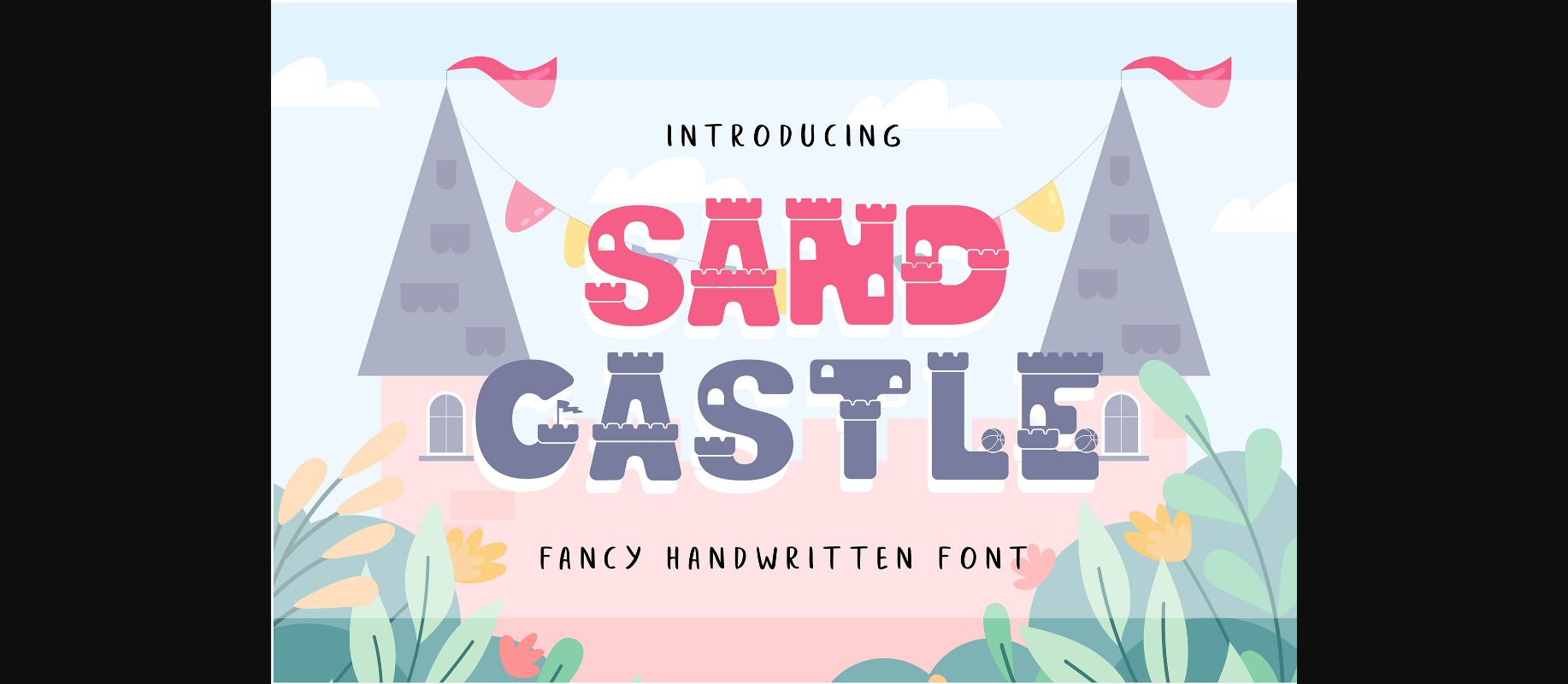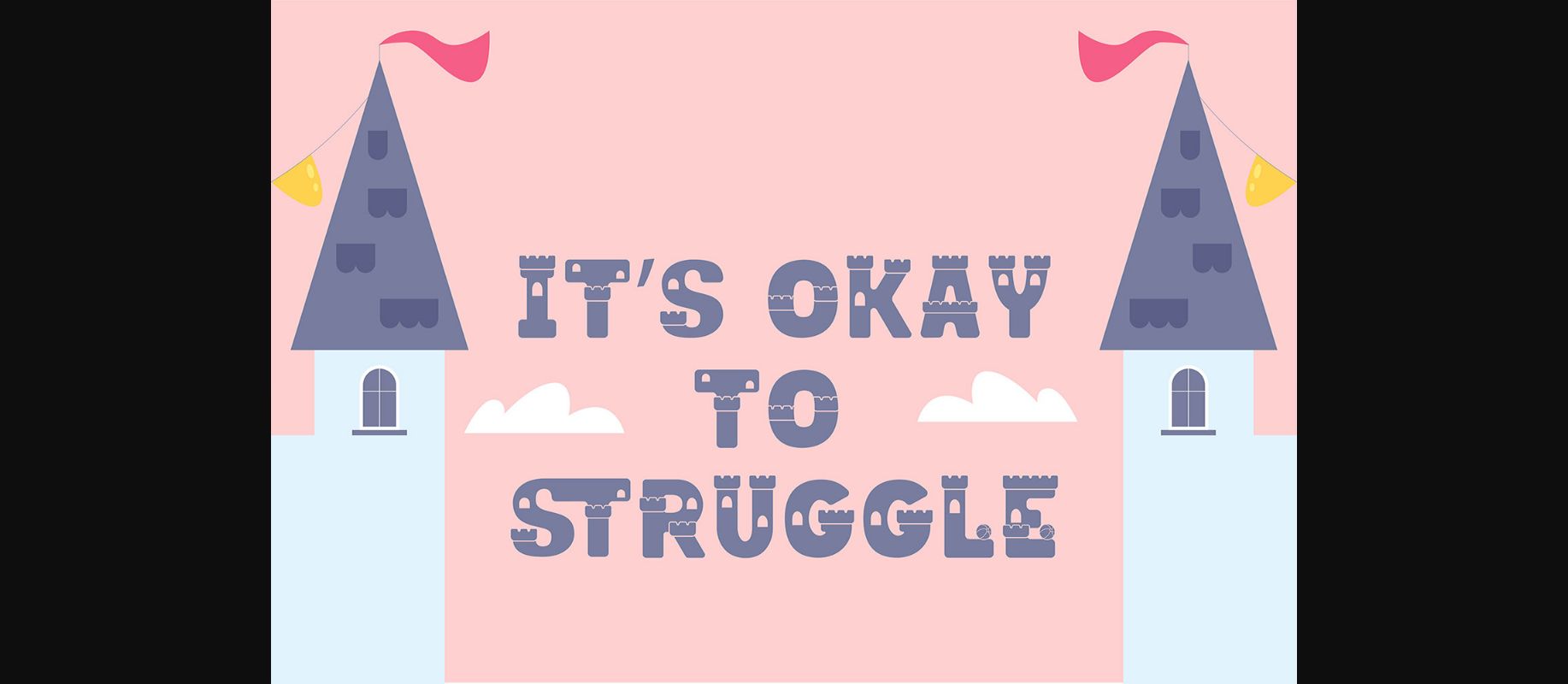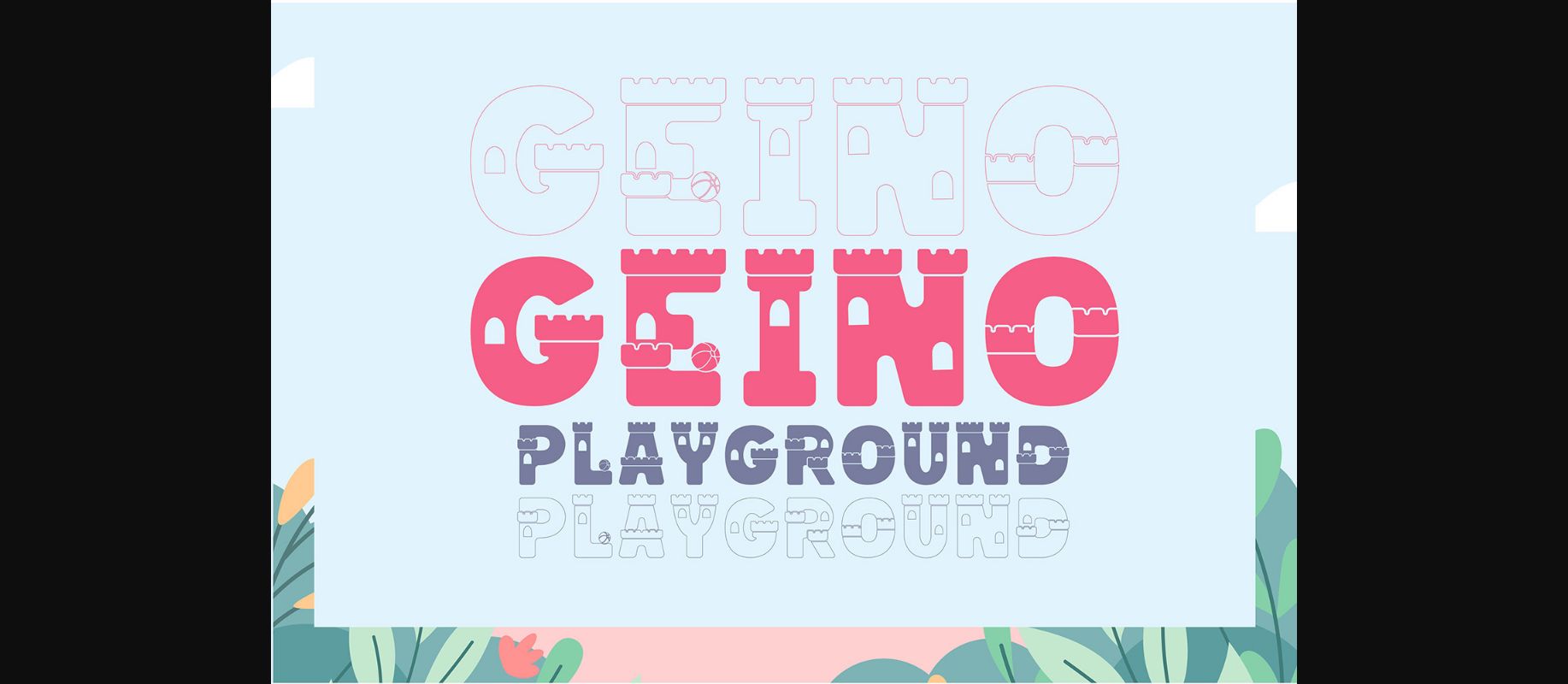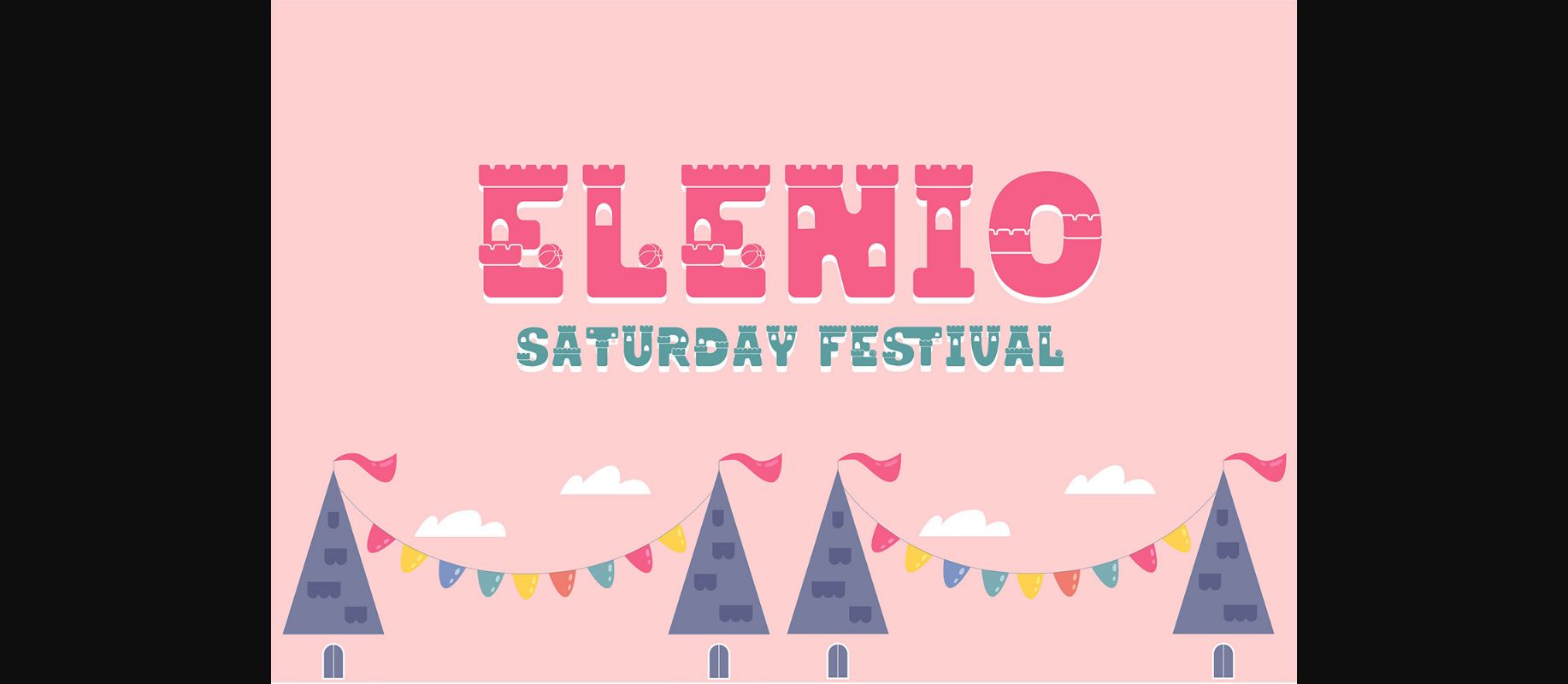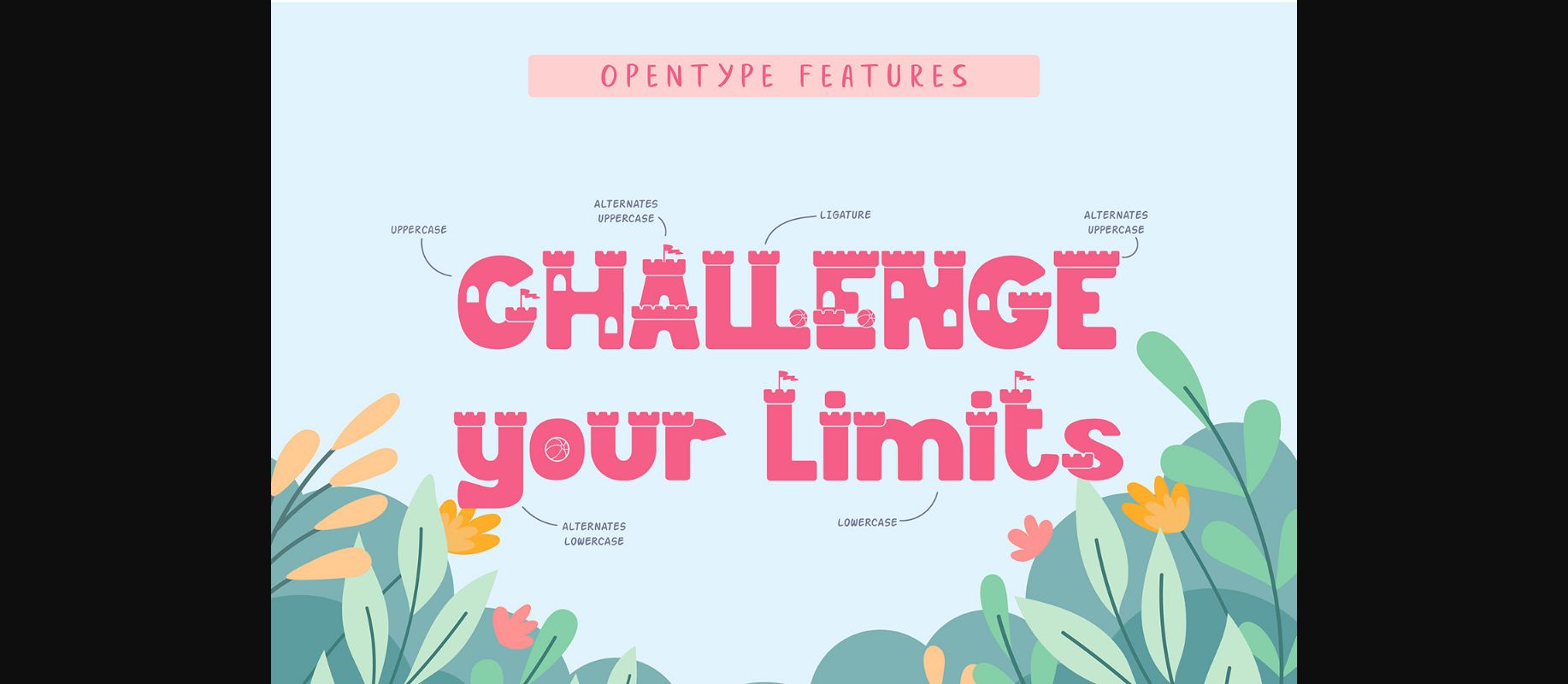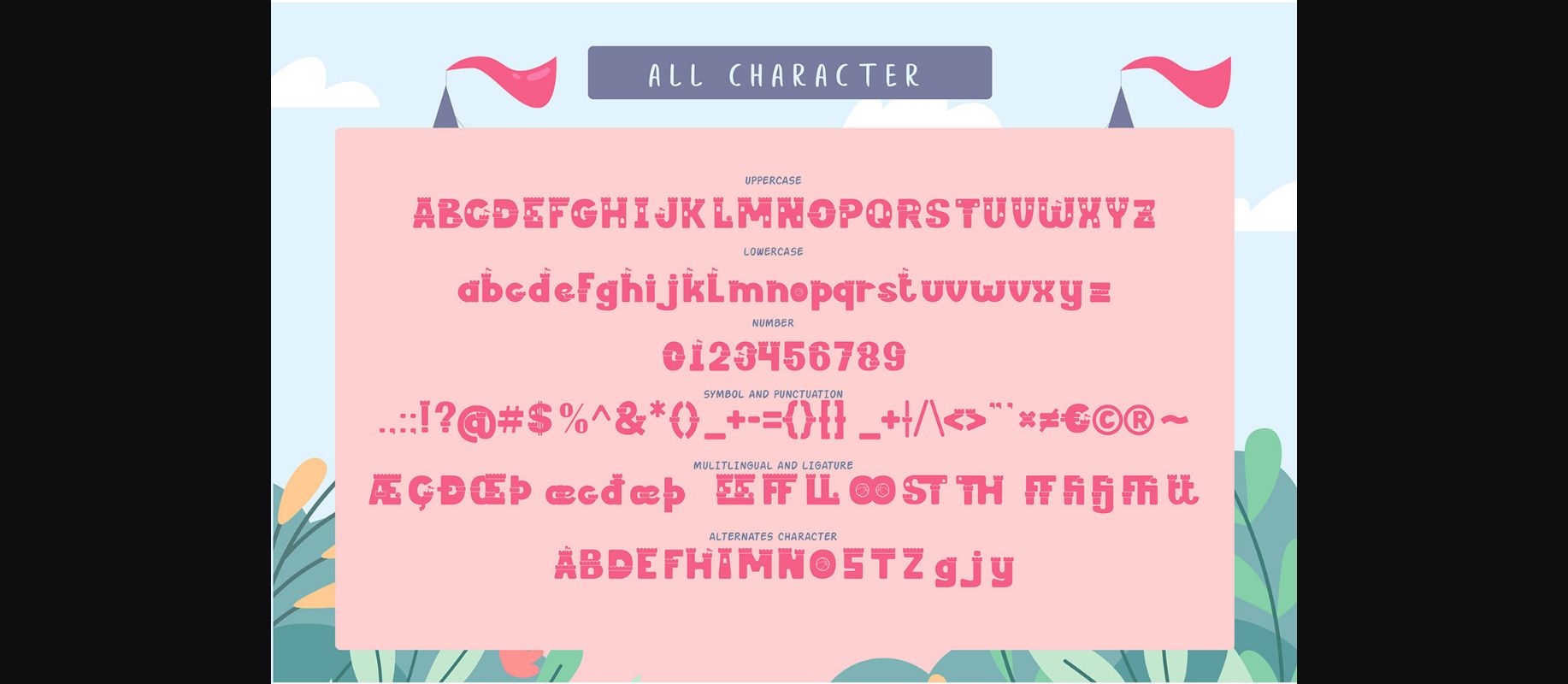
Sand Castle Font
About Sand Castle Font
Sand Castle is a playful decorative font inspired by the magical world of sandcastles. Its fun and comic style makes it the perfect choice for children’s books and teaching materials. Add it to your most creative ideas, and notice how they capture everyone’s attention.